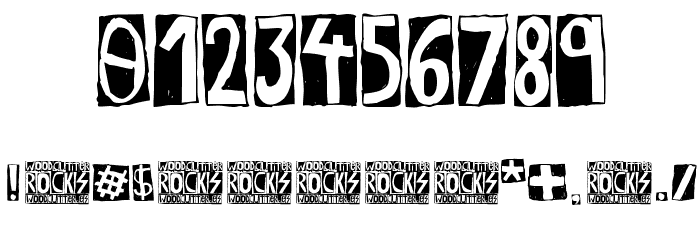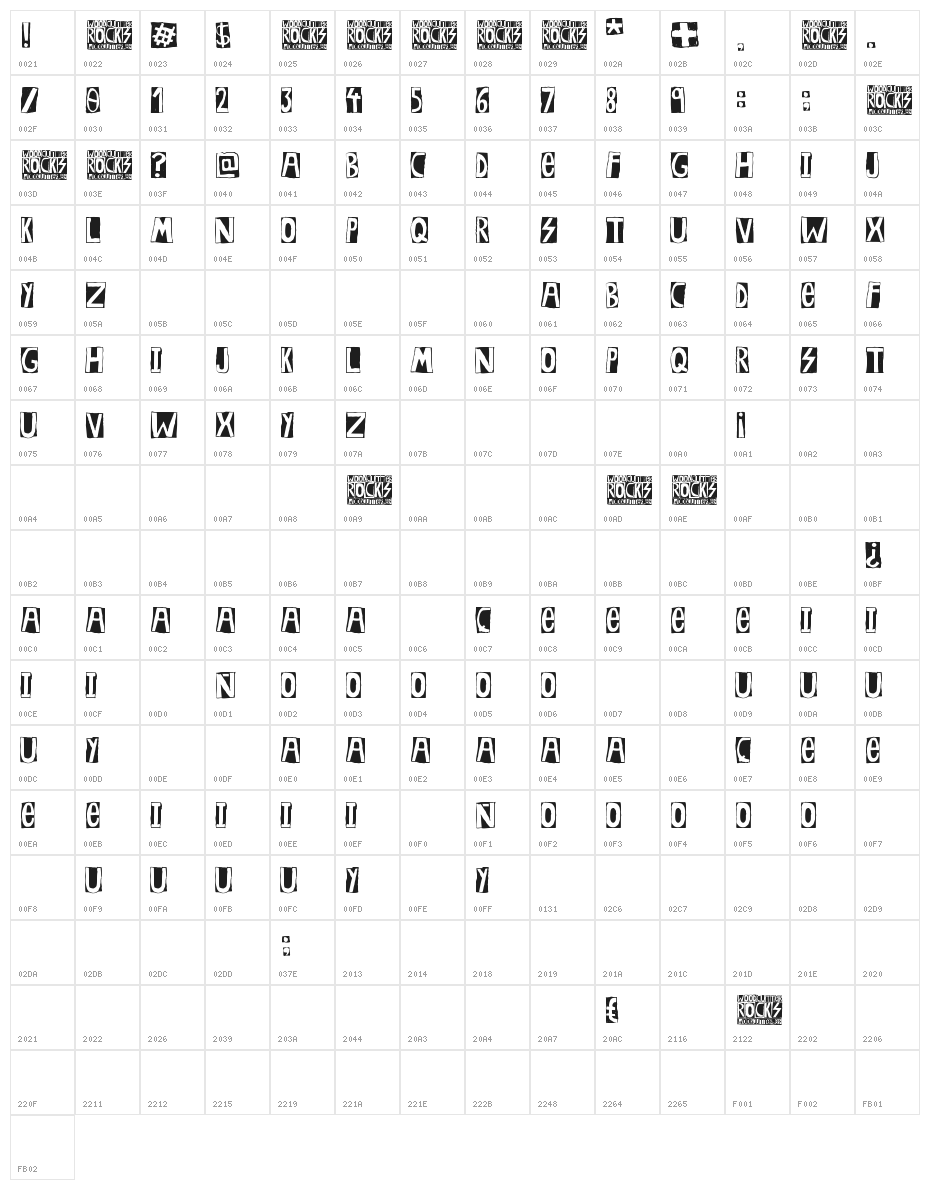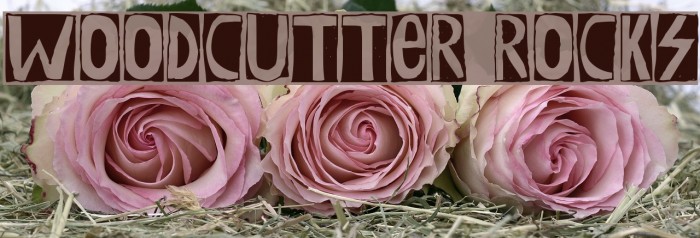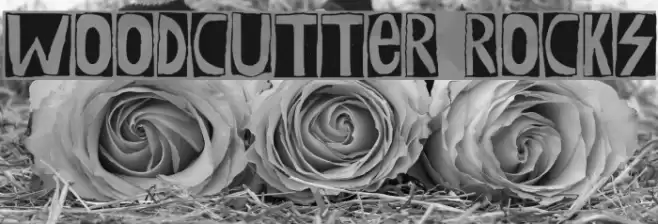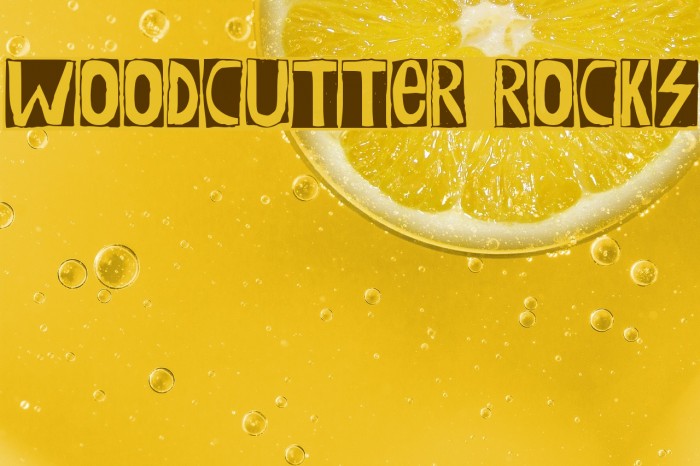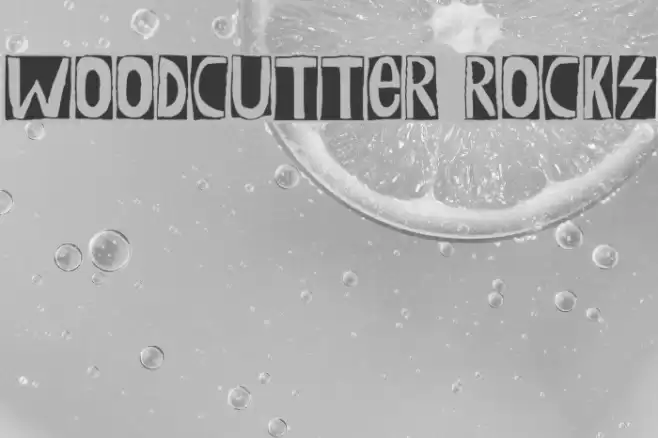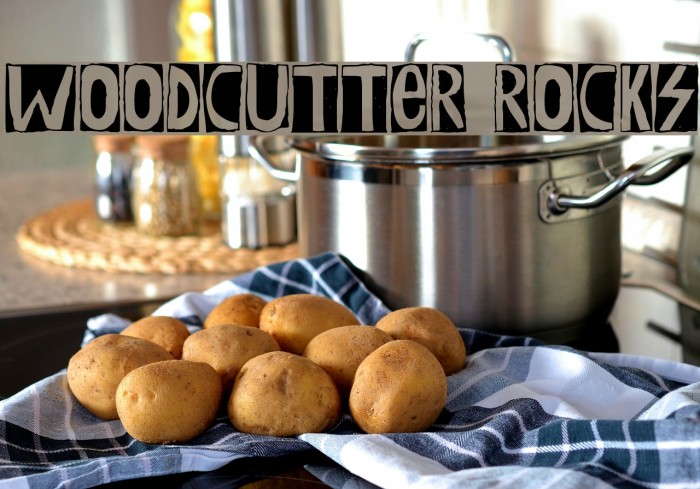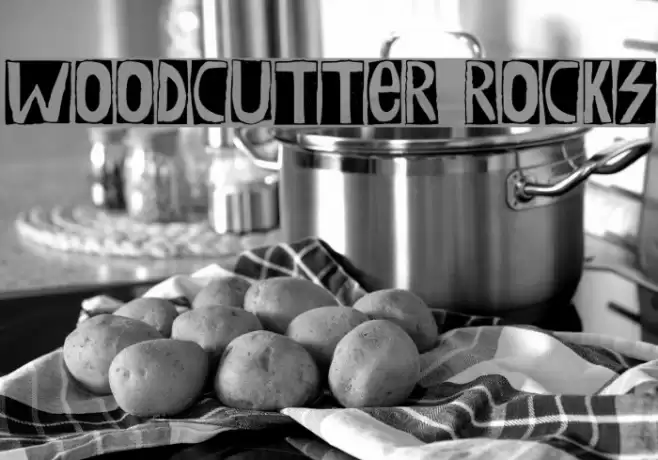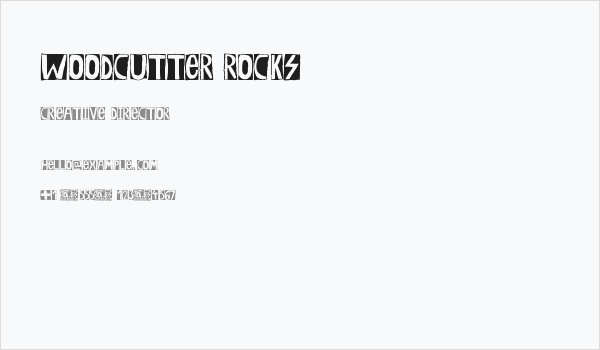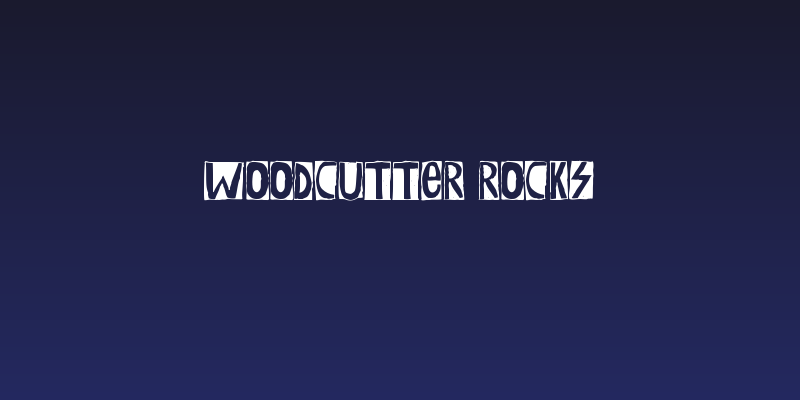
Woodcutter Rocks Font
Woodcutter Rocks Description
This font features a bold, hand-drawn style with a rugged and playful appearance. Each character is enclosed in a roughly hewn block, giving it a distinctive, rock-like texture. The letters are uppercase and have a slightly uneven baseline, adding to the informal and dynamic feel. The numbers and special characters maintain this aesthetic, ensuring consistency across all glyphs. The font's unique style makes it stand out, perfect for projects that require a bold and unconventional look.
| Use Case | Headlines, Posters, Logos |
| Proposed Projects | Ideal for music album covers, event posters, or any design needing a bold, playful touch. |